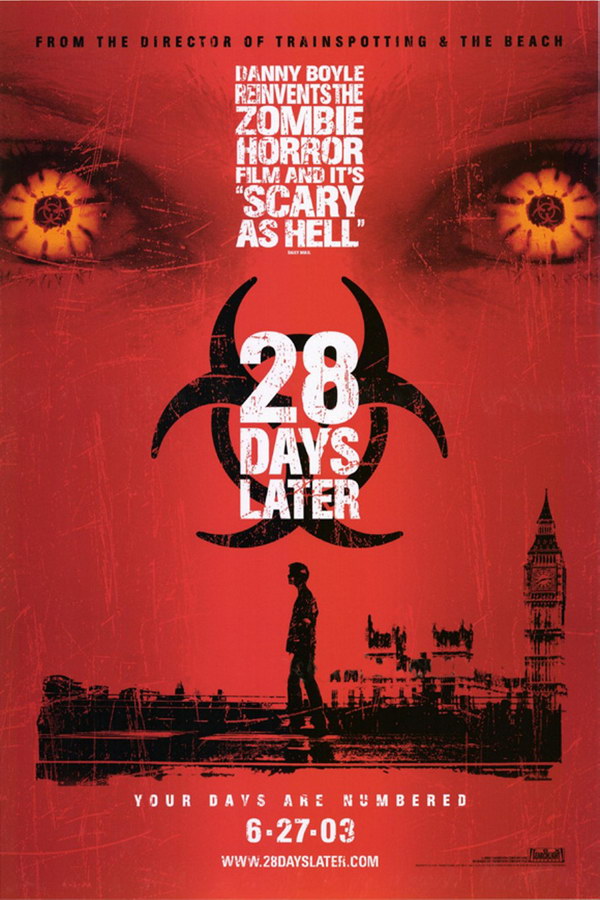
28 Days Later Font
Fonts in Use28 Days Later is a 2002 British post-apocalyptic horror film directed by Danny Boyle, where a man wakes up from a coma to find himself in a world ravaged by a deadly virus that turns people into aggressive, zombie-like creatures. He joins a group of survivors trying to find safety while avoiding the infected.
The poster for the movie displayed its title in a font with a grungy appearance. Jens R. Ziehn's font, "28 Days Later," closely resembles the lettering used in the film's title and is available for free download from the Fonts Used Section.